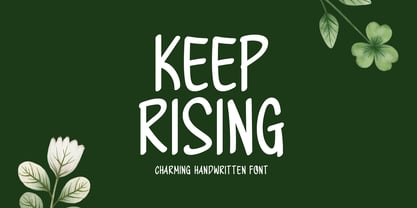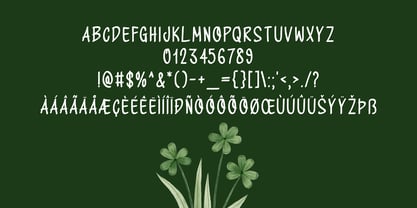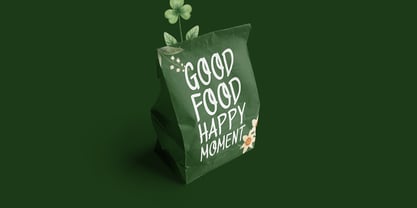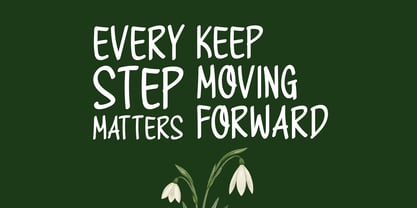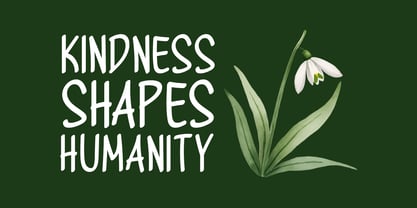
Keep Rising
von Seemly Fonts
Die Schriftfamilie Keep Rising wurde von Md. Sohail Bhuiyan entworfen und von Seemly Fonts veröffentlicht. Keep Rising enthält 1 Stile. Mehr über diese Familie
Keep Rising is a smooth, handwritten font designed with tall, expressive strokes that give each letter a natural flow. Its relaxed and uplifting style makes it an excellent choice for inspiring quotes, branding materials, posters, t-shirt designs, social media content, and various creative layouts. Keep Rising brings a warm, encouraging tone to every project, helping your message stand out with clarity and charm.
Designer: Md. Sohail Bhuiyan
Foundry: Seemly Fonts